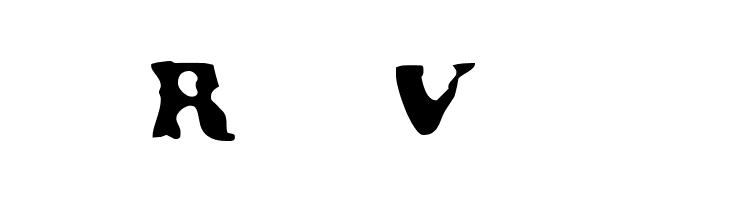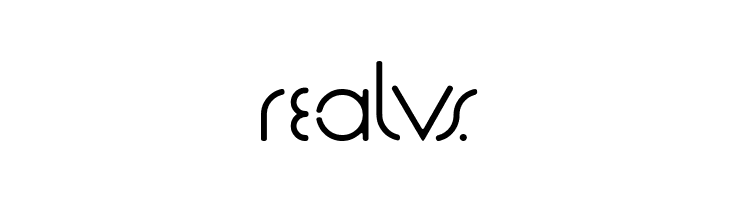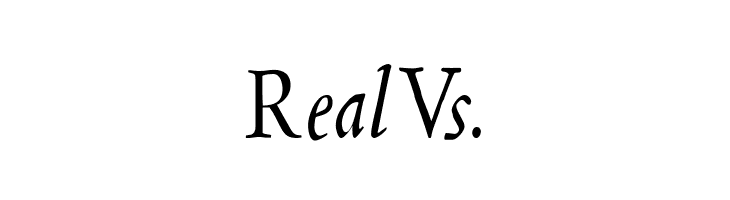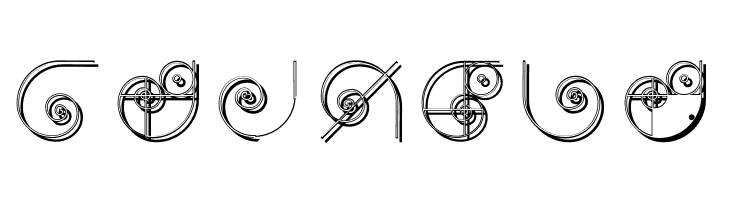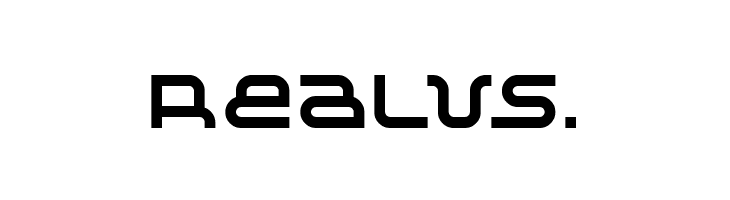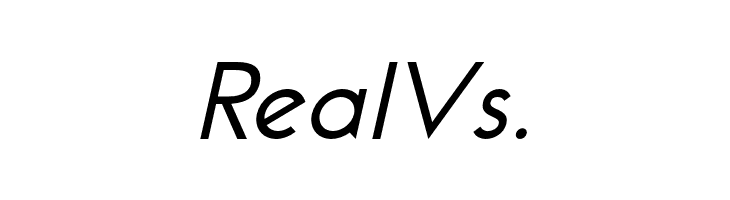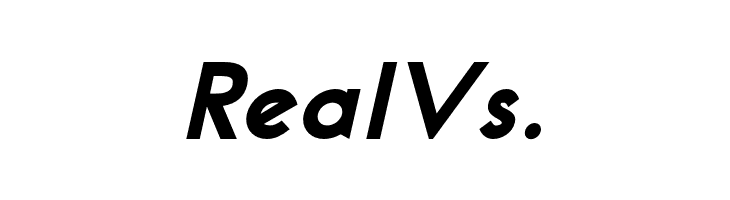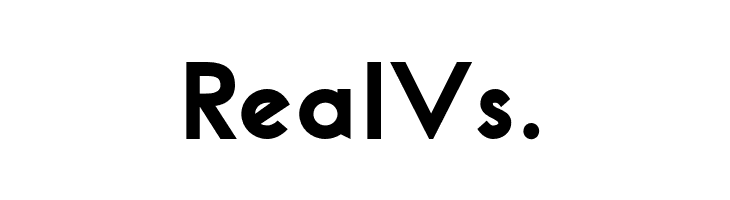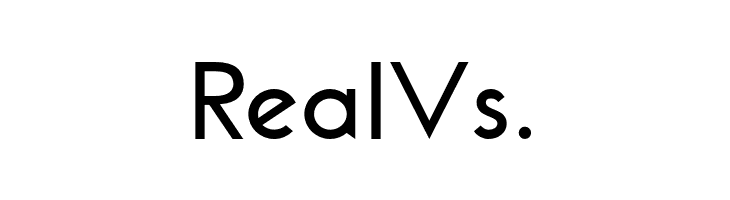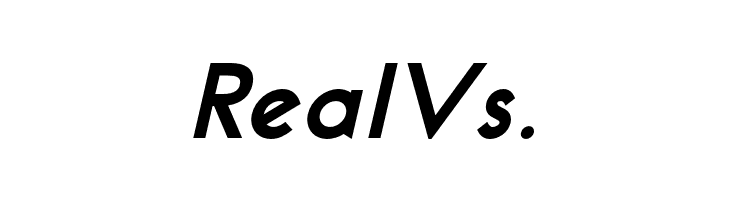
An artistic font with intricate spiral and geometric designs inspired by nautilus shells.
A classic serif font with elegant, flowing lines and a slightly calligraphic touch.
A modern, geometric font with clean lines and rounded edges.
An artistic display font composed of modern art illustrations for each character.
A geometric and angular font with a futuristic and artistic style.
A modern, geometric font with a futuristic and minimalistic design.
A futuristic, italicized font with geometric lines and a sleek, modern appearance.
A bold, angular font with a modern geometric style.
A futuristic, geometric font with rounded edges and consistent stroke width.
A bold, geometric font with a futuristic and tech-inspired design.
A modern, sans-serif typeface with clean lines and excellent legibility.
A unique and artistic font with elegant curves and a dynamic presence.
Illustrative display font with neighbor-themed scenes in each glyph.
A bold, modern font with geometric influences and clean lines.
A bold, oblique font with modern, dynamic letterforms.
A modern, bold, and slightly oblique font with geometric uppercase and rounded lowercase letters.
A bold, modern font with clean, geometric lines and uniform stroke width.
A bold, oblique font with a modern and dynamic style.
A bold, geometric font with a modern and clean design.
A sleek, modern font with clean lines and a minimalist aesthetic.
A sleek, modern oblique font with smooth curves and clean lines.
A modern, geometric font with a clean and sleek design.
A sleek, modern oblique font with dynamic curves and sharp edges.
A sleek, modern oblique font with smooth curves and sharp edges.
A modern, geometric font with clean lines and consistent stroke width.
A playful, decorative font with bold outlines and dotted interiors.
( Neospace Circuit is an avant-garde typeface designed for lovers of technology and science fiction. With its elegant extended proportion and geometric minimalism, Neospace redefines typographic aesthetics with a perfect fusion between modern and futuristic )
A futuristic, circuit-inspired font with geometric lines and dot accents.
A bold, modern sans-serif font with clean lines and uniform spacing.
A thin, geometric font with a modern, minimalist style.
A modern, bold sans-serif font with geometric shapes and uniform strokes.
A sleek, modern font with thin, uniform strokes and a geometric influence.